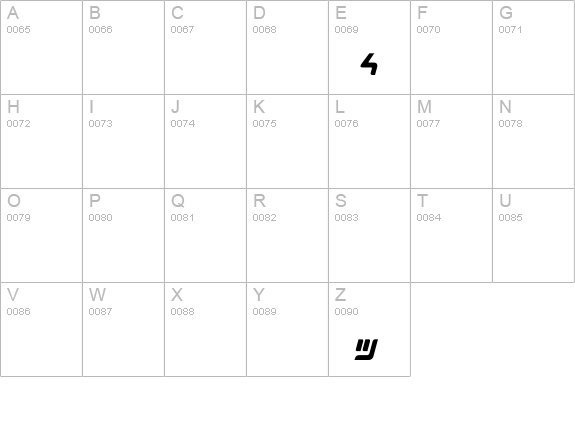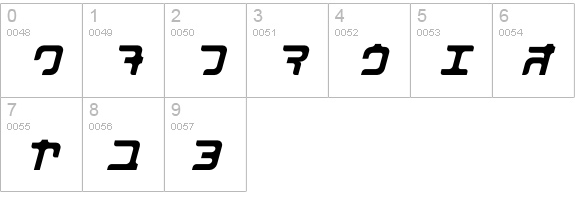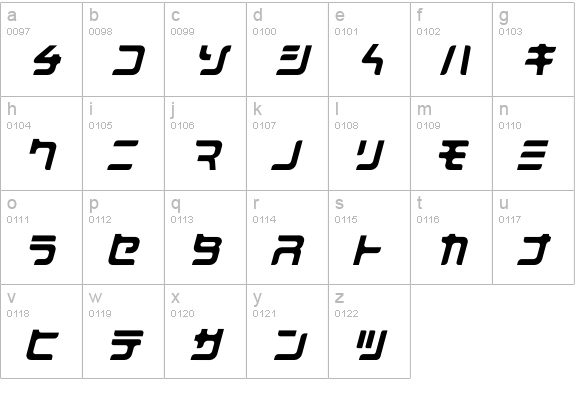
MarkingMarker-KANAItalic Font Details
Introducing MarkingMarker-KANAItalic, a captivating and versatile font that effortlessly combines elegance and flair. This font is the perfect addition to any creative project, allowing you to make a bold statement while maintaining a touch of sophistication. With its unique italicized style, MarkingMarker-KANAItalic captures attention and adds a touch of artistic charm to your designs. Its meticulously crafted letterforms exude a sense of fluidity and grace, making it ideal for a wide range of applications, from branding and advertising to invitations and signage. But what truly sets MarkingMarker-KANAItalic apart is its availability. This remarkable font is not only visually stunning, but it is also freely available to download at FontsMarket.com. Yes, you heard it right – you can now elevate your designs with this extraordinary font without spending a penny. FontsMarket.com offers a seamless and user-friendly experience, allowing you to easily access and download MarkingMarker-KANAItalic in just a few simple clicks. Whether you're a professional designer looking to add a touch of uniqueness to your portfolio or a casual hobbyist seeking to enhance your personal projects, MarkingMarker-KANAItalic is the perfect choice. Its striking presence and freely accessible nature make it an invaluable resource for anyone passionate about creating visually captivating and impactful designs. So why wait? Download MarkingMarker-KANAItalic today from FontsMarket.com and unlock a world of creative possibilities. Transform your designs into masterpieces that leave a lasting impression, all with the help of this remarkable font. Remember, with MarkingMarker-KANAItalic, elegance and creativity know no bounds.